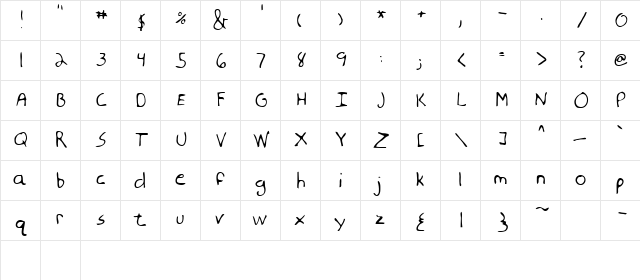
Mooner Regular
Design Context for Mooner
Mooner is a composed and adaptable typeface that performs quietly and consistently across a wide range of design contexts.